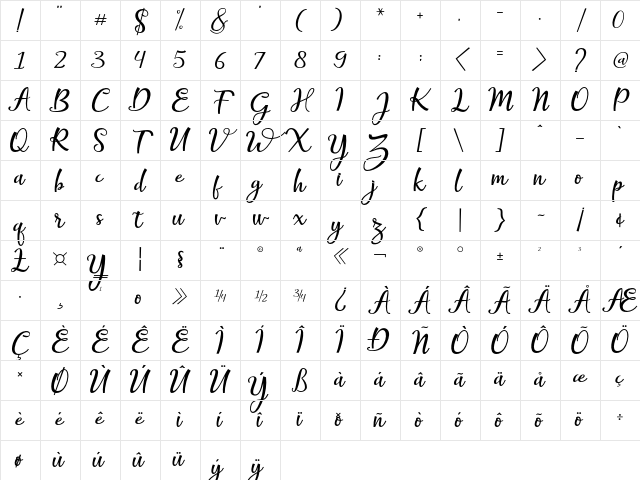
Complete fantabulous script Regular glyph index. Displaying only characters natively supported by fantabulous script Regular font.
fantabulous script flows with the natural rhythm of handwritten lettering, making it ideal for designs that call for warmth and personal expression.
Font Pairing: Combine fantabulous script with a simple geometric sans for maximum contrast - the tension between flowing curves and clean structure is a classic typographic pairing.
Pro Tip: Use fantabulous script for short runs of text - names, titles, or taglines. Extended body copy in script faces tires the eye quickly.